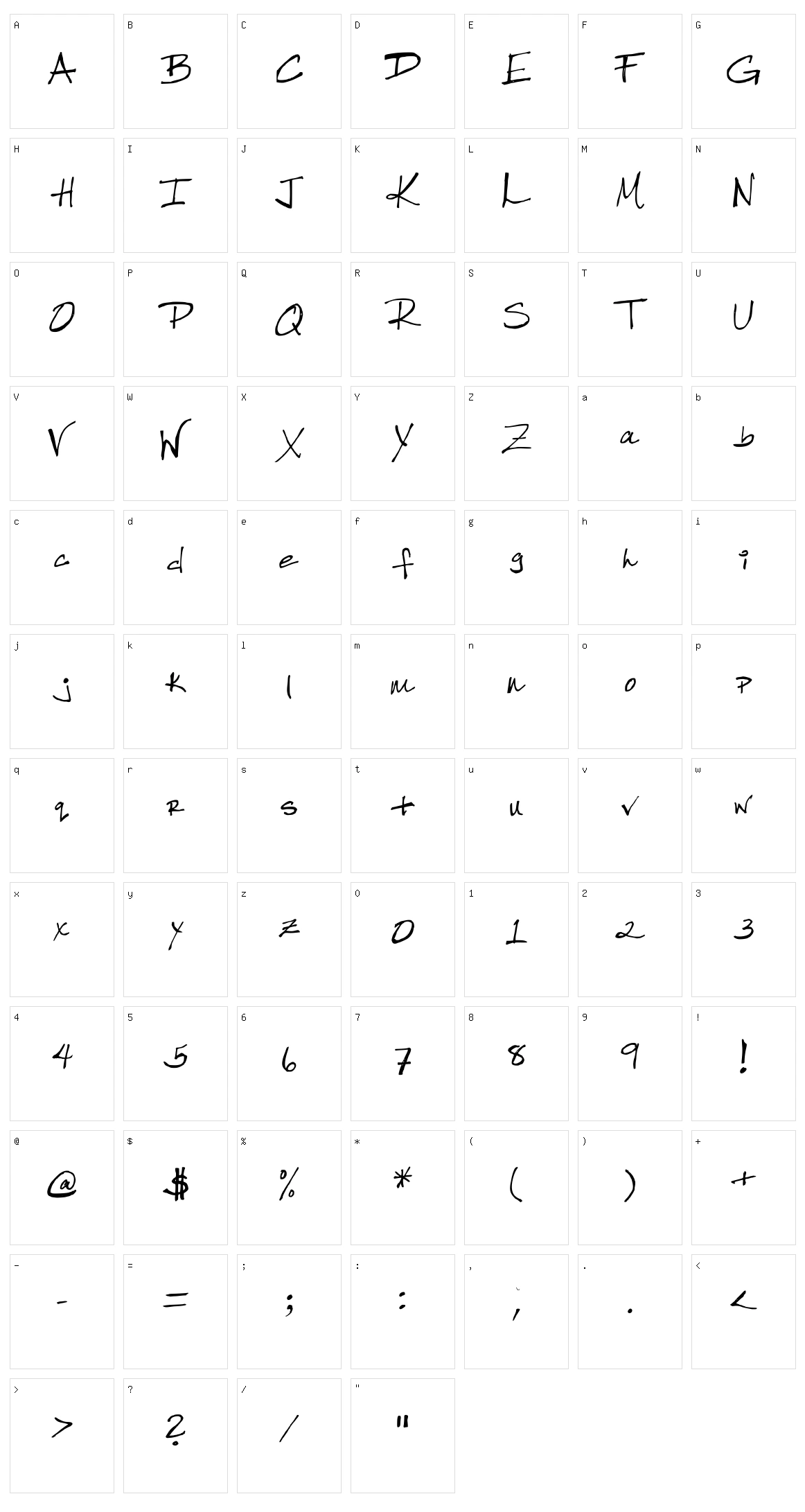
The free font Robinhood is carefully designed by Robin Phelps-Ward, showcasing a thoughtful balance of creativity and usability and falls under the Script font style. When you download the ZIP file, it contains only 16.84 KB of font files, making it lightweight and quick to download. Please review the license details below to understand permitted usage and distribution rights. If license information is not available, we recommend using this font for personal projects only or contacting the author directly for commercial usage permissions.